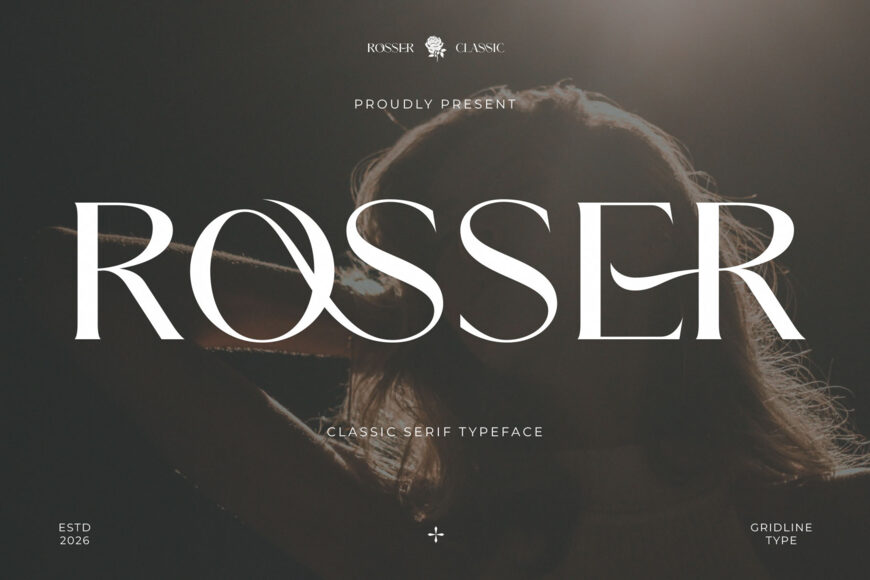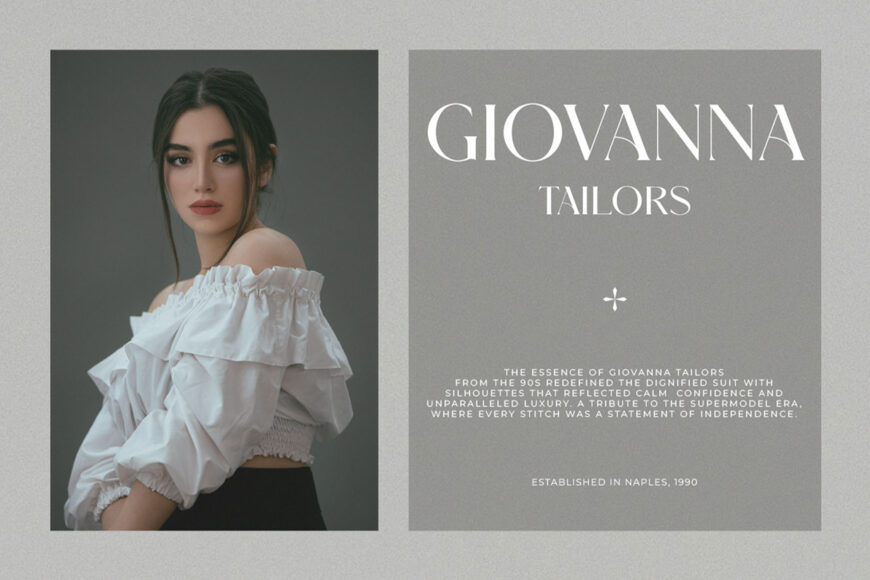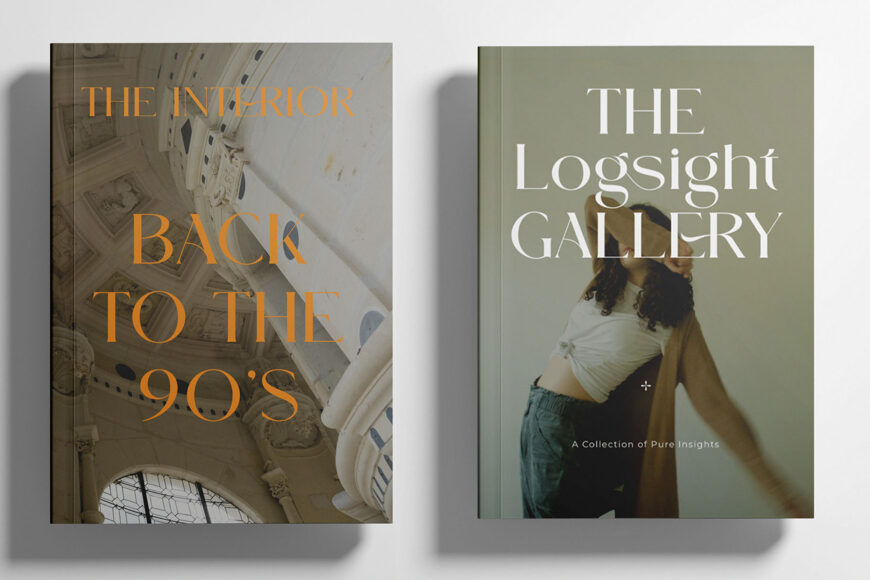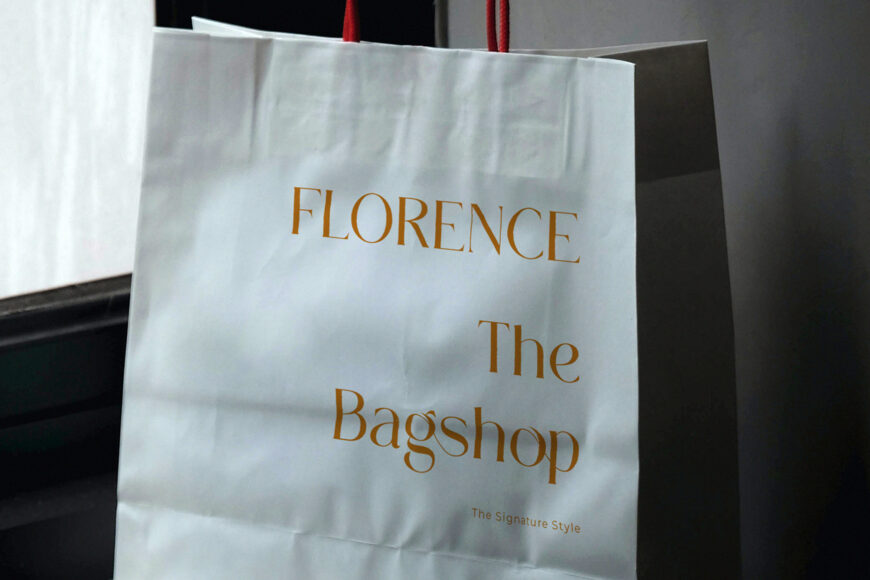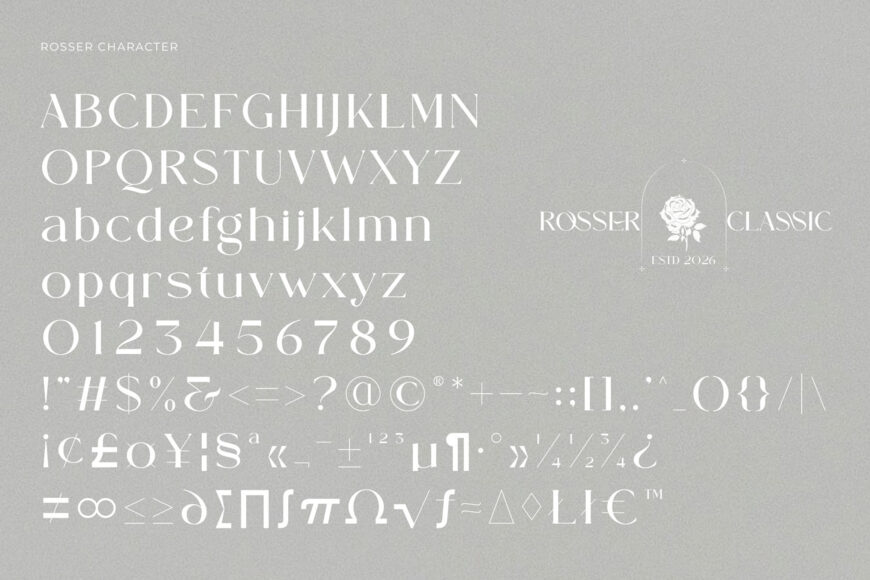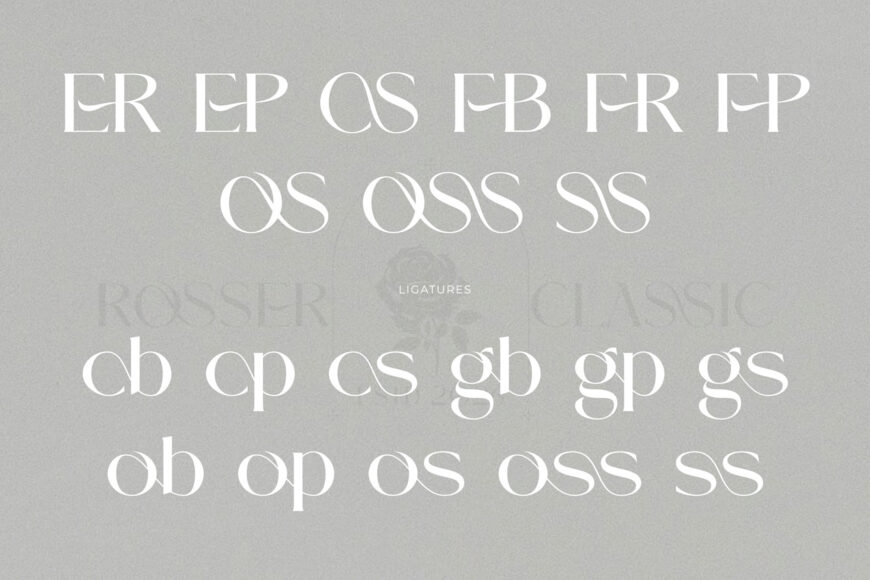
Exude timeless luxury with Rosser, a classic serif typeface meticulously designed by Gridline Type. This font is a masterpiece of high-fashion elegance, featuring dramatic contrast between its thick stems and razor-thin hairlines. Rosser is an extraordinary choice for high-end editorial headers, luxury branding, boutique cosmetic packaging, and chic social media content.